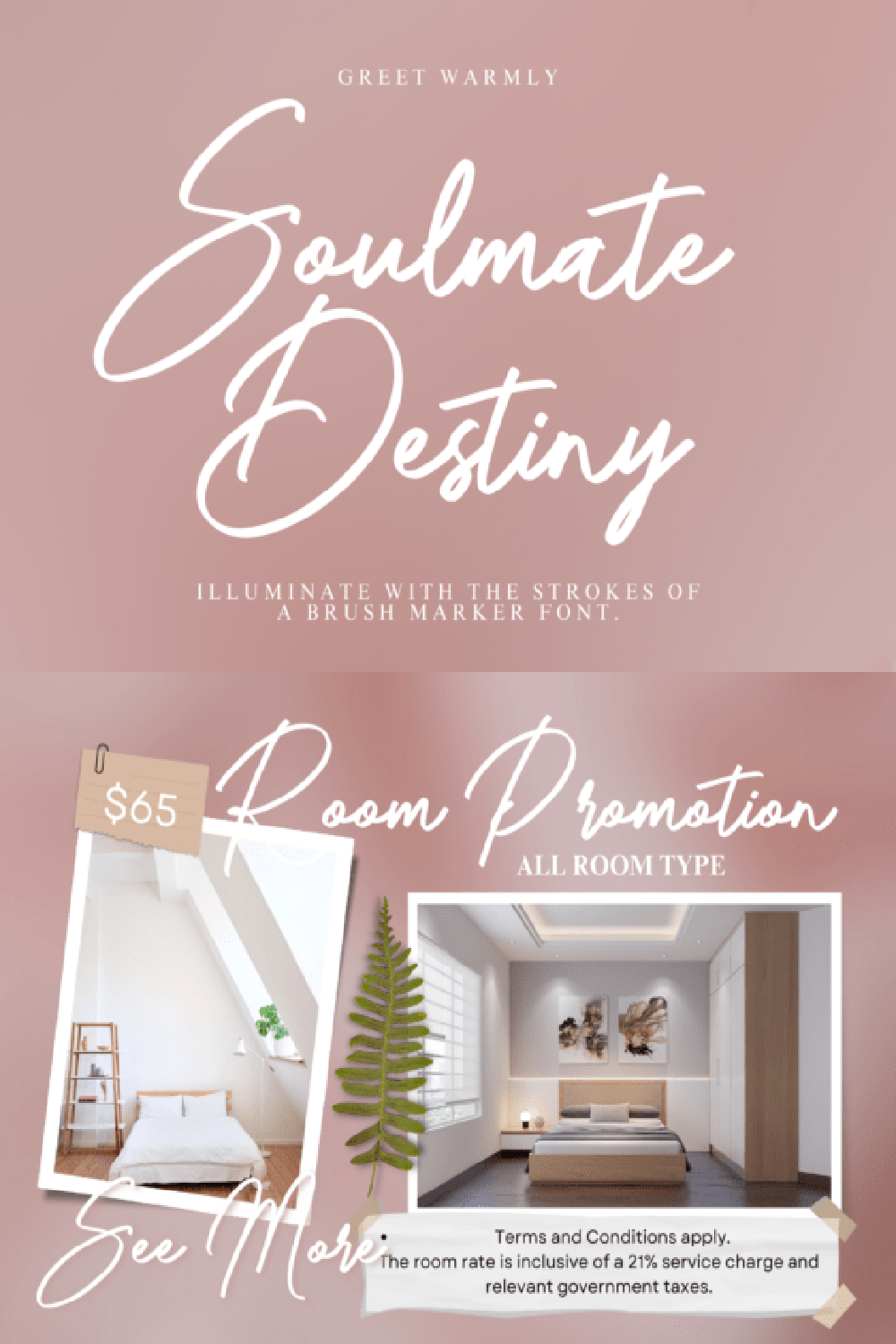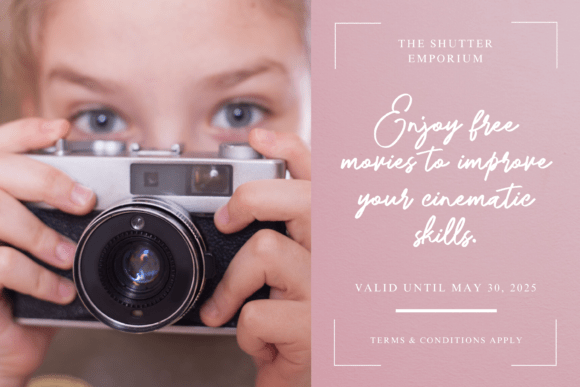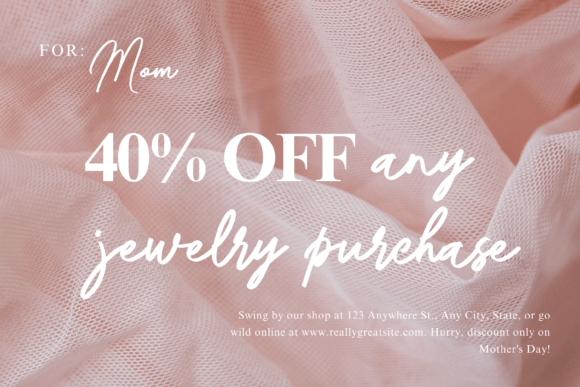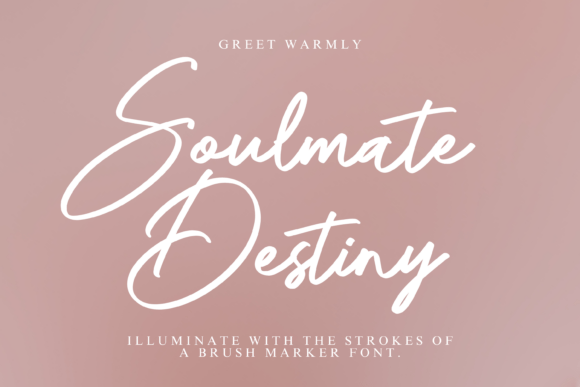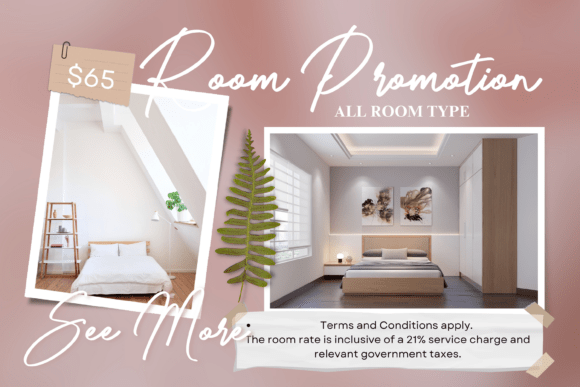
Soulmate Destiny Font
About the Soulmate Destiny Font
The Soulmate Destiny Font is here to transform your projects with its distinctive character and style. Meet Soulmate Destiny, a handwritten font crafted with heartfelt precision and a deep love for organic lettering. Every stroke tells a story—fluid, personal, and full of soul. Designed to emulate the effortless charm of natural handwriting, Soulmate Destiny is perfect for creatives who crave authenticity in every design.